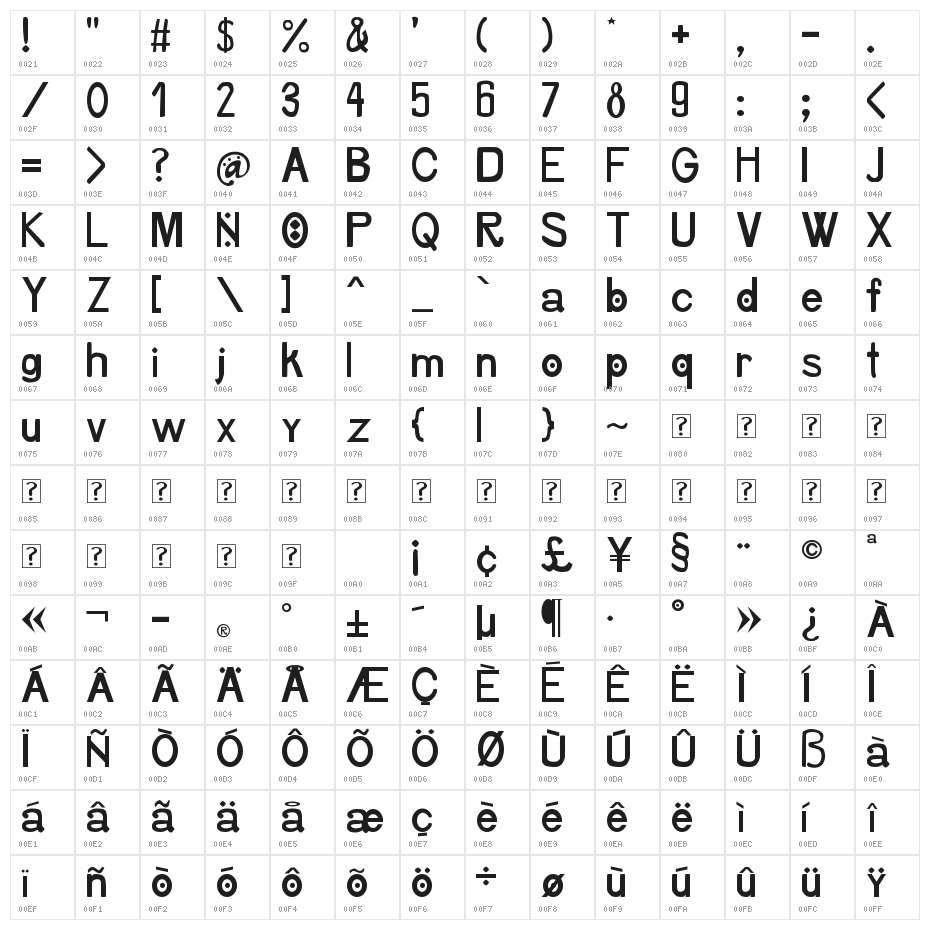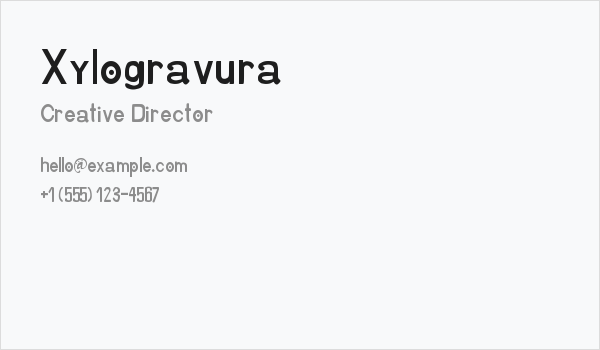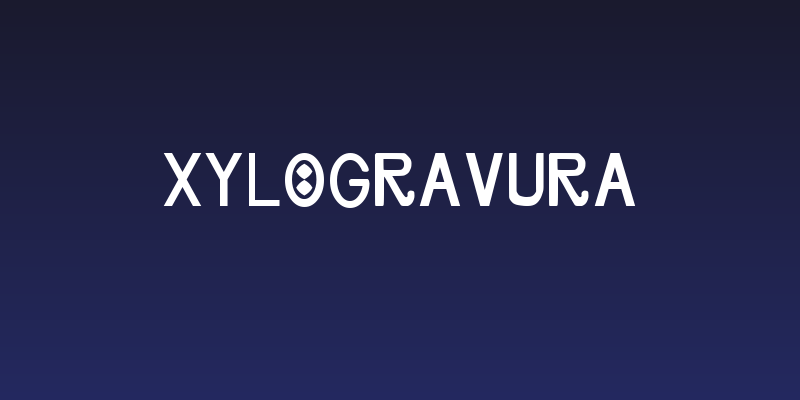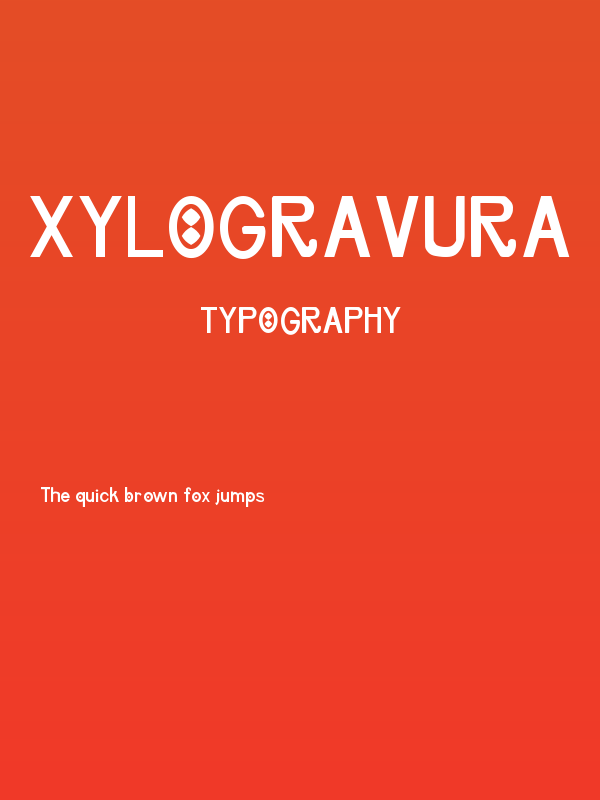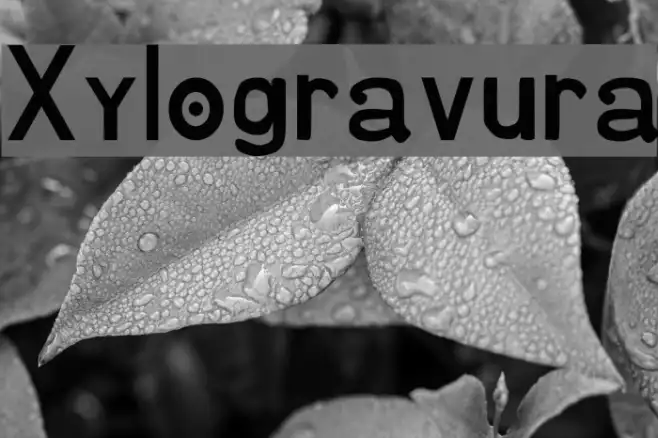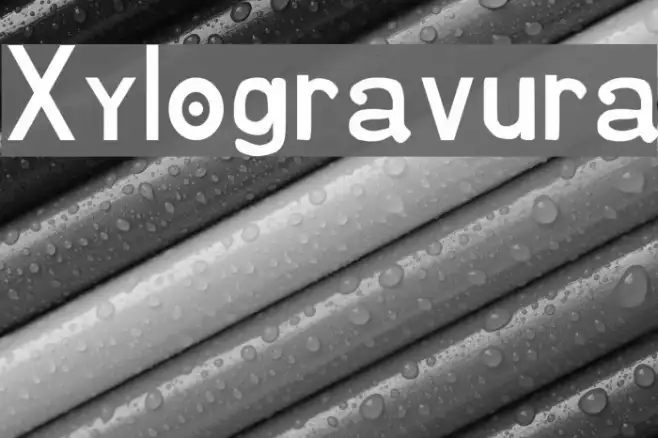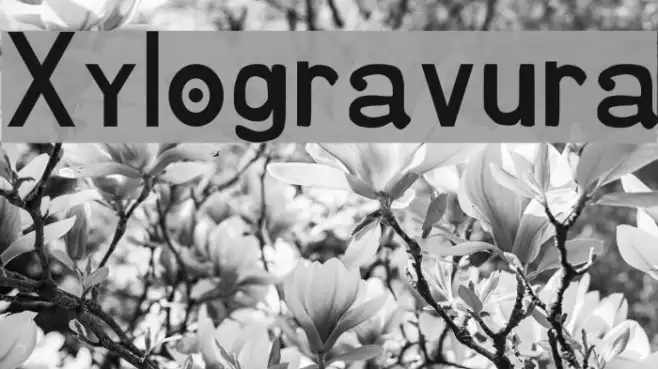
Xylogravura Font
Xylogravura Description
This font features a bold and modern design with a unique geometric flair. The uppercase letters are distinct with a mix of straight lines and subtle curves, giving them a contemporary and slightly industrial feel. The lowercase letters maintain a consistent style, with rounded edges that soften the overall look. Numbers are clear and easy to read, making them suitable for various applications. The special characters are well-integrated, maintaining the font's cohesive appearance. This font's boldness and clarity make it stand out, while its geometric elements add a touch of creativity.